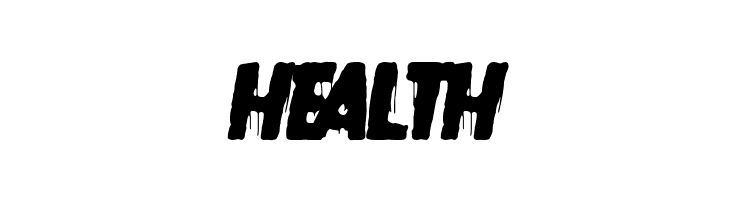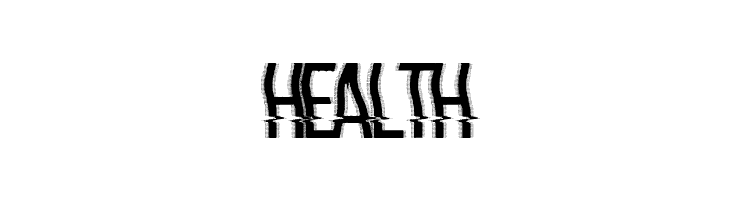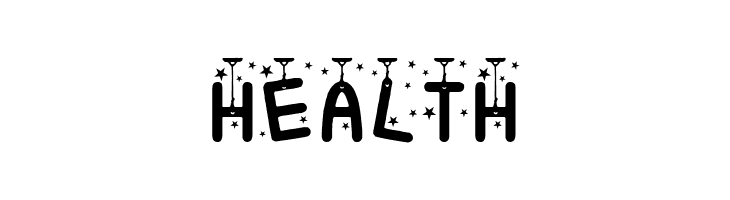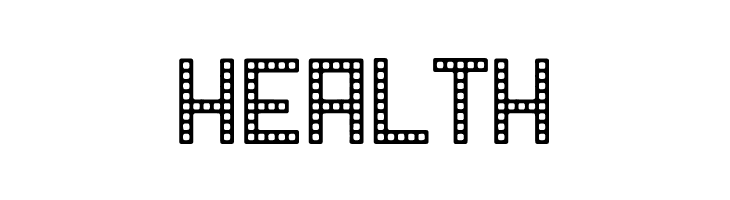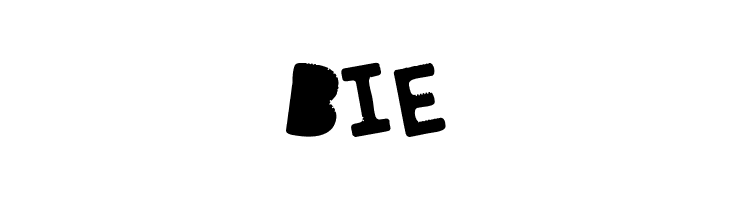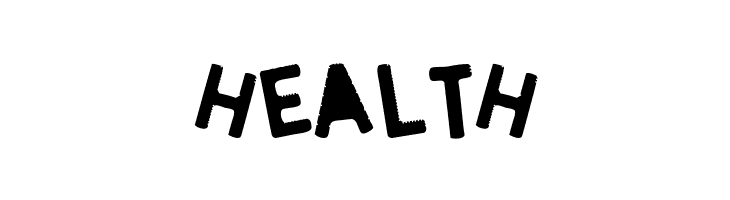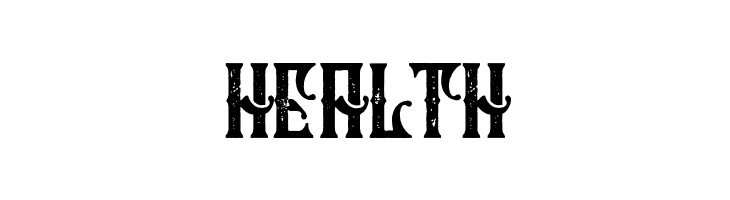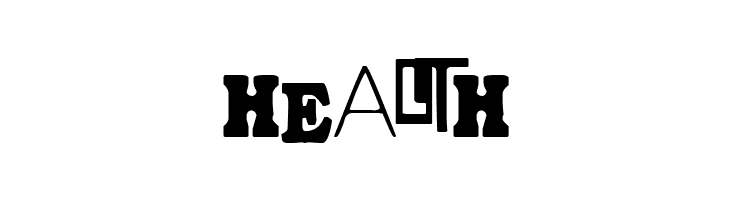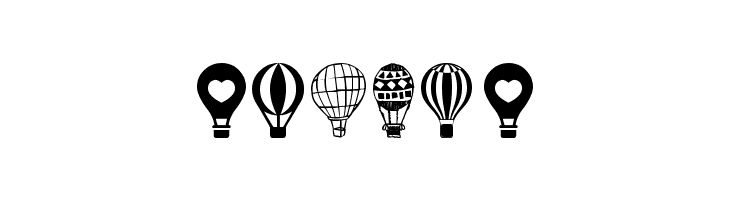
( Woodcutter - woodcutter Manero - www.woodcutter.es )
A bold, dripping font with a grunge and horror aesthetic.
( Woodcutter - woodcutter Manero - www.woodcutter.es )
A bold, distorted font with a glitch art style, perfect for modern, edgy designs.
( Woodcutter - woodcutter Manero - www.woodcutter.es )
A playful, whimsical font with hanging letters and star accents, perfect for festive designs.
( Woodcutter - woodcutter Manero - www.woodcutter.es )
A playful, dot-based font with a retro digital aesthetic.
( Woodcutter - woodcutter Manero - www.woodcutter.es )
A bold, rugged font with a hand-drawn, edgy appearance.
( Woodcutter - woodcutter Manero - www.woodcutter.es )
A playful, bold, hand-drawn font with irregular, whimsical characters.
( Woodcutter - woodcutter Manero - www.woodcutter.es )
A bold, gothic-inspired font with sharp, angular edges and dramatic styling.
( Woodcutter - woodcutter Manero - www.woodcutter.es )
A bold, distressed font with a vintage, decorative style.
( Woodcutter - woodcutter Manero - www.woodcutter.es )
A playful, collage-style font with eclectic, cut-out letter designs.
( Woodcutter - woodcutter Manero - www.woodcutter.es )
A diverse set of whimsical hot air balloon illustrations in various styles.